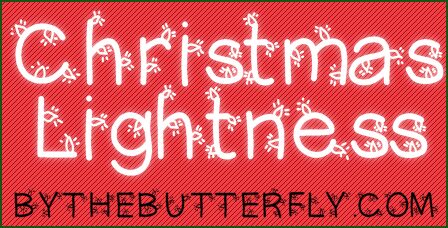
ChristmasLigtness
Christmas Ligtness from Bythebutterfly.com is a free Christmas display font with rounded, loosely drawn letters and an uneven, cheerful silhouette. Tiny bulbs appear throughout the letterforms. Short radiating marks make the decorations look switched on.
A seasonal gift shop could use it for packaging or greeting cards, especially when the product theme involves lights and ornaments. Its playful drawing also suits party invitations and children's activity sheets. The repeated bulb motif lets the lettering act like part of a string-light illustration rather than a plain caption.